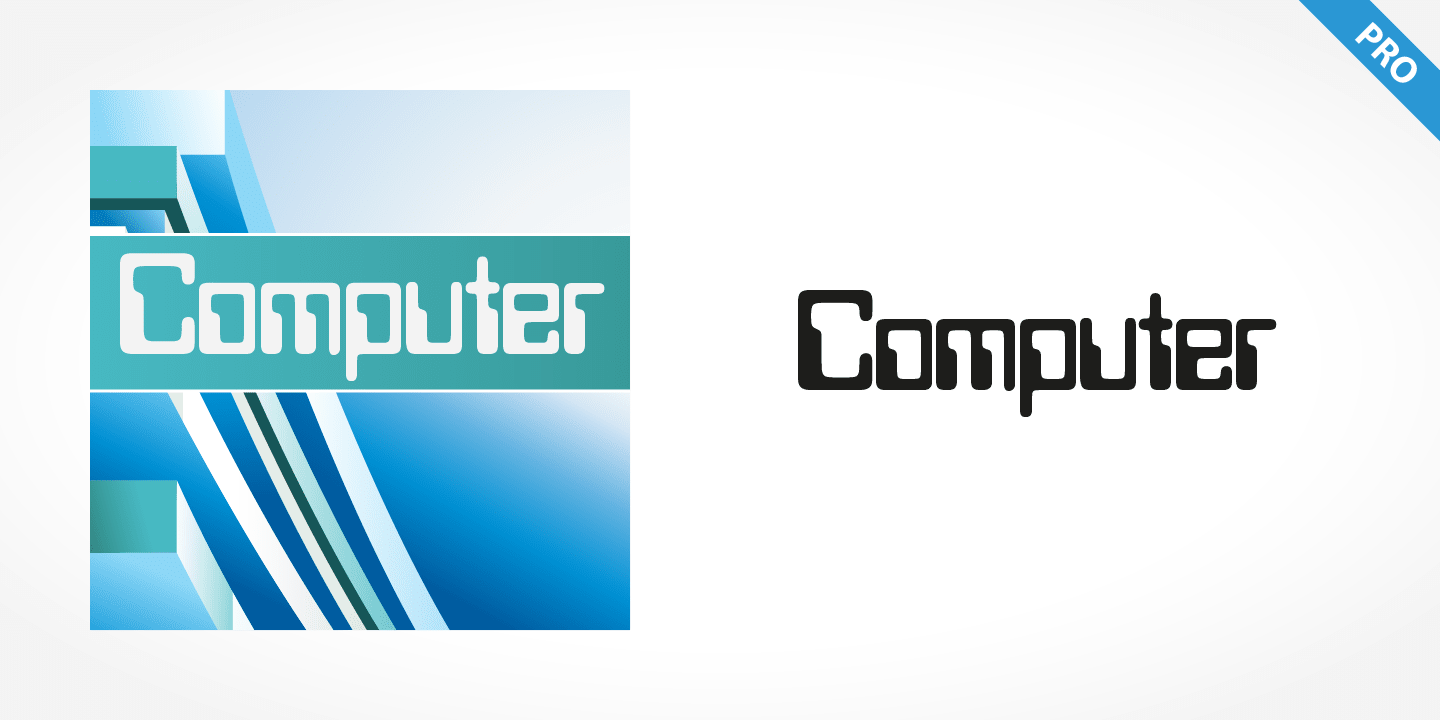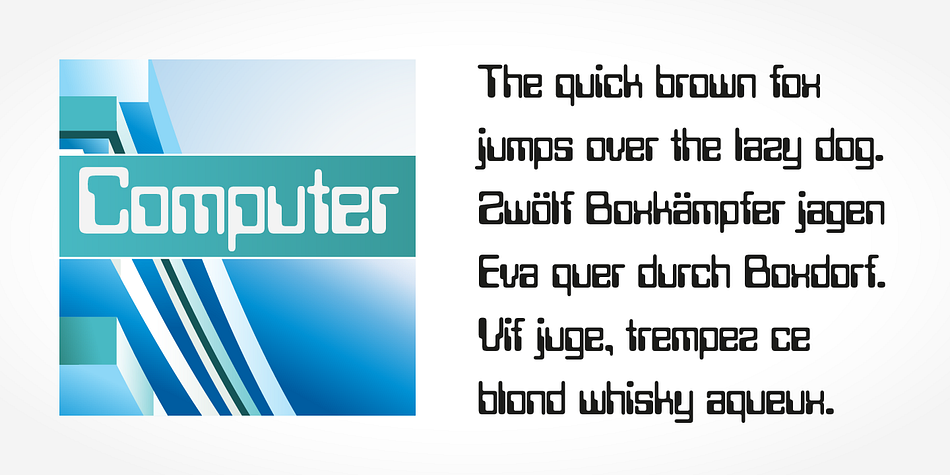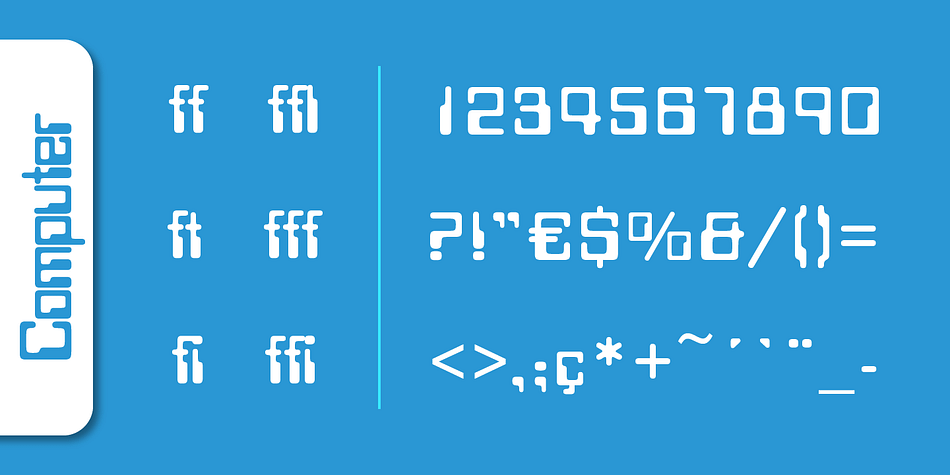
Computer Pro
Computer Pro is a pixel and retro font published by SoftMaker.
Computer Pro is a high-tech style font, with the look of old computer lettering. It gives any text a futuristic appearance.